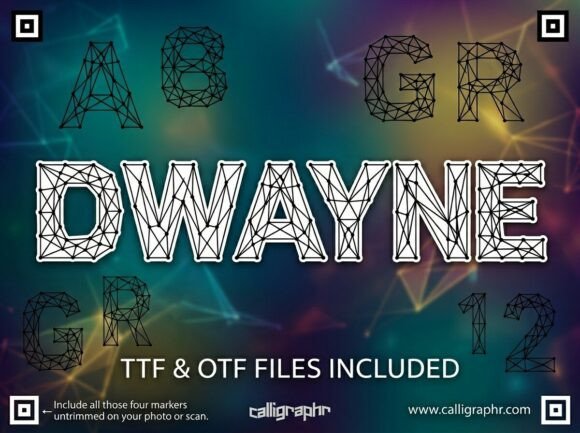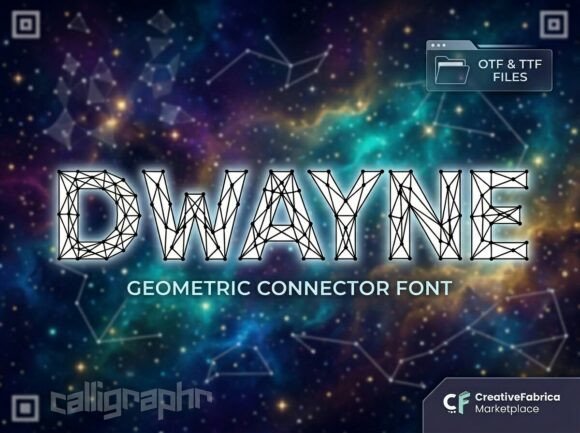
Introducing Dwayne Font: A Stunning Decorative Display Font
Are you tired of using the same old fonts for your designs? Do you want to add a touch of uniqueness and creativity to your projects? Look no further than Dwayne Font, a breathtaking decorative display font that’s designed to turn heads. In this article, we’ll dive into the features and benefits of Dwayne Font, and explore how it can elevate your designs to the next level.
Dwayne Font is a stunning decorative display font that’s specifically designed to be the center of attention. With its unique artistic elements and strong visual personality, this font is perfect for creators who want to break away from the ordinary. Whether you’re working on bold headlines, artistic logos, or creative packaging, Dwayne Font is the perfect choice for adding a touch of drama and flair.
One of the standout features of Dwayne Font is its versatility. This font is suitable for a wide range of design applications, from bold headlines and artistic logos to creative packaging and more. And with its professional and polished finish, you can be sure that your designs will look amazing across all devices and platforms.
Dwayne Font is a dream come true for designers and crafters who want to add a touch of creativity and uniqueness to their projects. Whether you’re working on a logo, brochure, or packaging design, this font is sure to make your designs stand out from the crowd.
With Dwayne Font, you can:
- Create stunning headlines and titles that grab attention.
- Design artistic logos and branding materials that reflect your unique style.
- Add a touch of elegance and sophistication to your packaging designs.
Tips for Using Dwayne Font
Here are a few tips for getting the most out of Dwayne Font:
- Use it for headlines and titles: Dwayne Font is specifically designed for high-impact headlines and titles, so use it to make a statement.
- Experiment with different colors: Dwayne Font looks amazing in bold, bright colors, so don’t be afraid to experiment and find the perfect hue for your design.
- Pair it with other fonts: Dwayne Font pairs perfectly with other fonts, so feel free to get creative and find the perfect combination for your design.
In conclusion, Dwayne Font is a stunning decorative display font that’s perfect for designers and crafters who want to add a touch of uniqueness and creativity to their projects. With its unique artistic elements, strong visual personality, and versatility, this font is sure to elevate your designs to the next level. So why wait? Purchase Dwayne Font today and start creating amazing designs that demand attention!